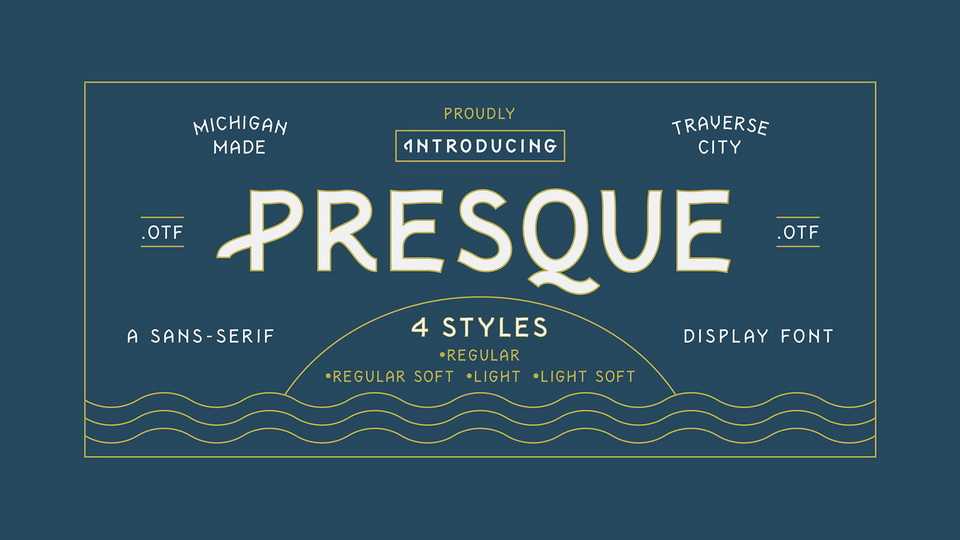
Download Presque font, a sans-serif, all caps display font family that takes a unique approach to traditional letterforms. Presque pulls inspiration from early 1900s packaging typography.
Designer: John Sheehan